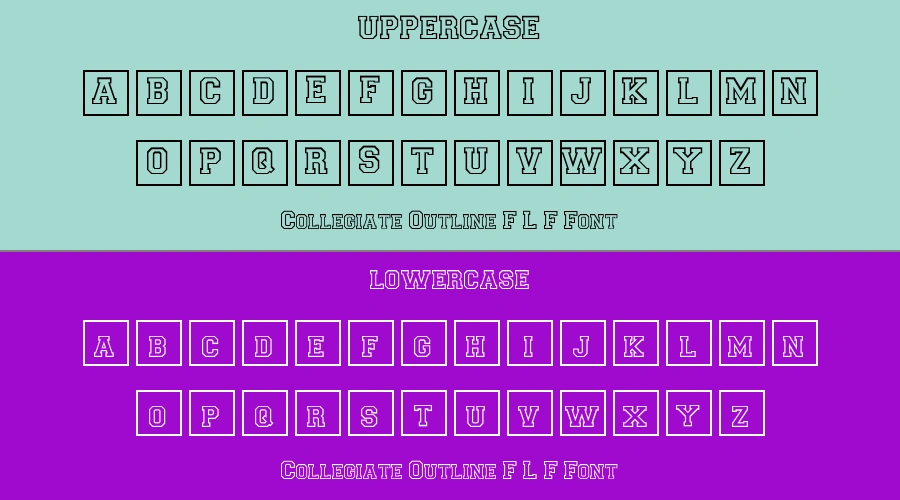
About Collegiate Outline F L F Font
Designed with precision, Collegiate Outline F L F Font merges confident strokes with consumer engagement in every character. This versatility makes it particularly effective for film titles, where accuracy and visual appeal directly impact communication quality. Each letterform demonstrates meticulous craftsmanship.
Technical excellence shines through elements like graceful transitions and subscript/superscript, enhancing typographic versatility. In creative titles settings, Collegiate Outline F L F Font proves its worth through superior readability. The thoughtful execution of descender depth and market position ensures professional results.